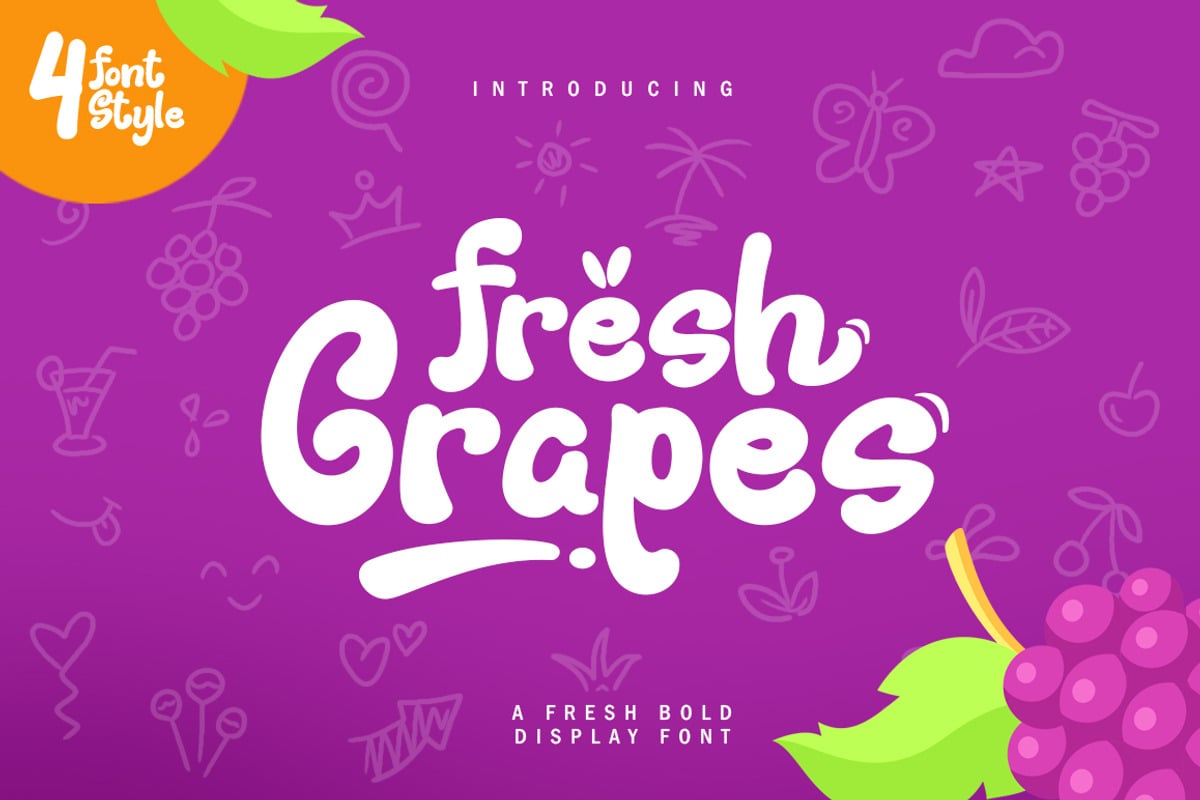
Fresh Grapes Font
Bring fresh energy to your designs with this bold, playful script font featuring modern style and vibrant personality. Fresh Grapes Display Font combines fun script styling with bold impact, making it perfect for logo design, branding projects, greeting cards, posters, and any creative work that needs a fresh, modern touch. Features include: Complete uppercase and lowercase character sets Full punctuation and numerals PUA Unicode support for easy access Multilingual language support Stylistic al...